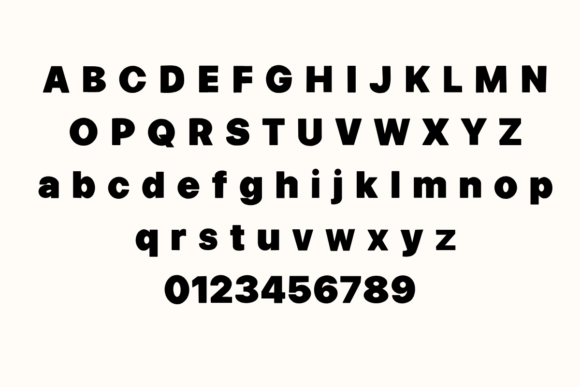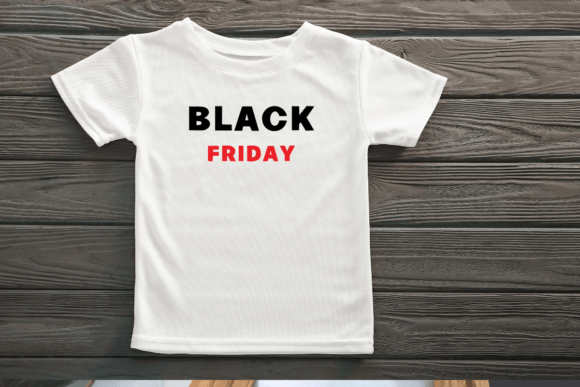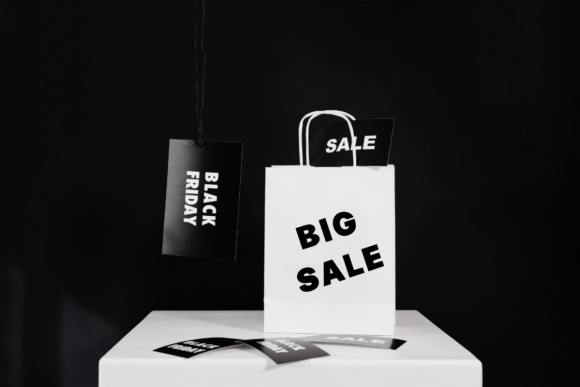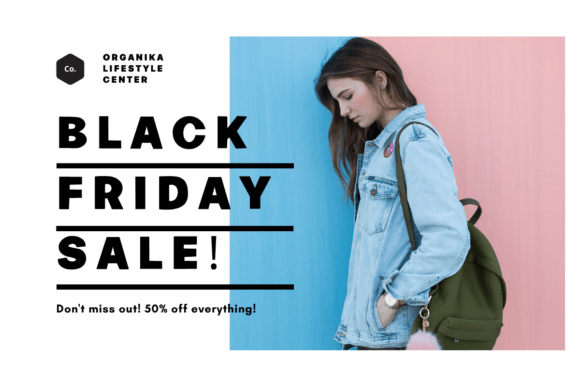
Introducing Black Friday Font: The Ultimate Choice for Sales Banners and Promotions
Are you looking for a font that can help you create attention-grabbing sales banners and promotions? Look no further than the Black Friday Font. Designed to dominate any sales message, this bold font is perfect for limited-time offers, store signage, eCommerce ads, and social media graphics. With its strong, thick letterforms and clean lines, the Black Friday Font is built for visibility and readability, even at a distance.
The Power of Bold Typography
The Black Friday Font is all about making a statement. Its bold, thick letterforms are designed to cut through the noise and grab the attention of potential customers. Whether used in uppercase or lowercase, this font reads powerfully and effectively, conveying a sense of urgency and importance. This is especially crucial for sales and promotions, where you want to create a sense of FOMO (fear of missing out) and encourage people to take action.
Key Features of the Black Friday Font
- Strong and Thick Letterforms: The Black Friday Font features strong, thick letterforms that are designed to stand out and grab attention.
- Clean Lines: The font’s clean lines ensure that it remains readable even at a distance, making it perfect for signage, billboards, and large-format prints.
- Uppercase and Lowercase Versatility: The font’s versatility means it can be used in both uppercase and lowercase, allowing you to create a range of different effects and emphasis.
- High-Impact Visibility: The Black Friday Font is designed to create high-impact visibility, making it perfect for limited-time offers, flash sales, and other promotional activities.
Use Cases for the Black Friday Font
The Black Friday Font is incredibly versatile and can be used in a wide range of applications, including:
- Limited-Time Offers: Create a sense of urgency and encourage people to take action with limited-time offers that use the Black Friday Font.
- Store Signage: Use the font to create eye-catching store signage that grabs the attention of passersby and draws them into your store.
- eCommerce Ads: The Black Friday Font is perfect for eCommerce ads, where you want to create a sense of excitement and urgency around your products.
- Social Media Graphics: Use the font to create attention-grabbing social media graphics that help you stand out in a crowded online landscape.
Why Choose the Black Friday Font?
So why choose the Black Friday Font over other fonts? Here are just a few reasons:
- Attention-Grabbing: The font is designed to grab attention and create a sense of urgency, making it perfect for sales and promotions.
- Versatile: The font can be used in a wide range of applications, from signage and billboards to social media graphics and eCommerce ads.
- Readability: The font’s clean lines and strong letterforms ensure that it remains readable even at a distance, making it perfect for large-format prints.
Tips for Using the Black Friday Font
Here are a few tips for getting the most out of the Black Friday Font:
- Use it Sparingly: While the Black Friday Font is attention-grabbing, it’s best used sparingly to avoid overwhelming your audience.
- Experiment with Color: Try out different colors and combinations to see what works best for your brand and message.
- Pair it with Other Fonts: The Black Friday Font can be paired with other fonts to create a range of different effects and emphasis.
In conclusion, the Black Friday Font is a powerful and versatile font that’s perfect for sales banners, promotions, and other marketing materials. With its strong, thick letterforms and clean lines, it’s designed to grab attention and create a sense of urgency. Whether you’re a designer, craftsperson, or marketer, this font is sure to help you create high-impact visibility and drive sales.